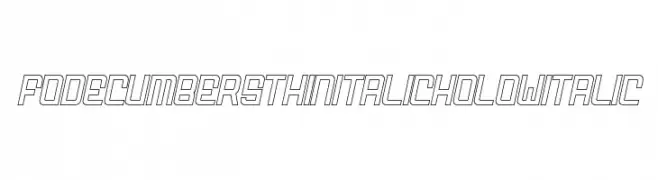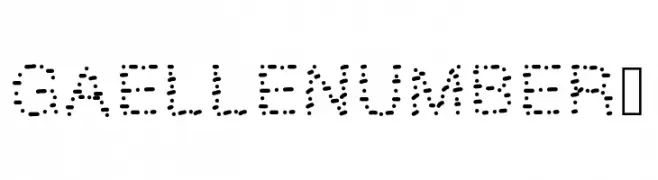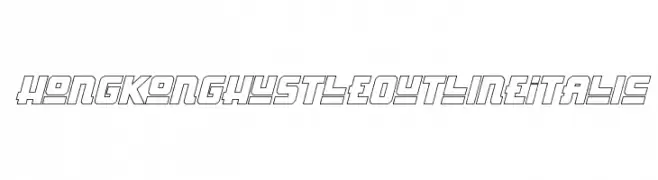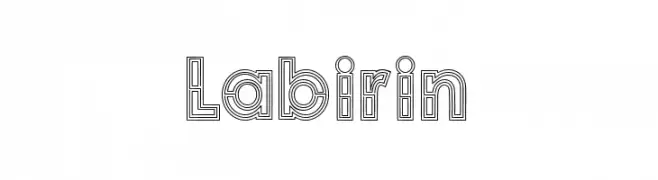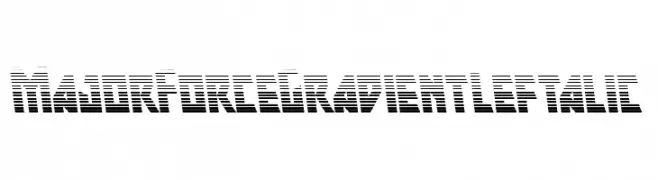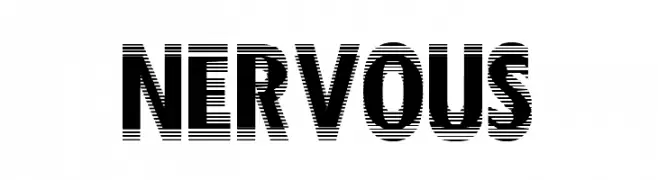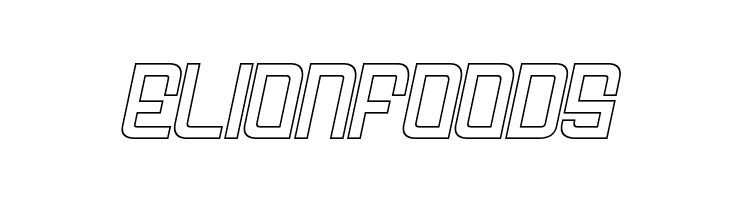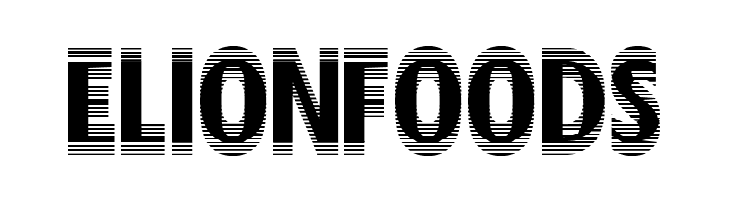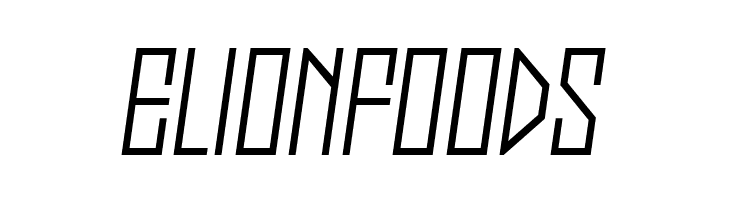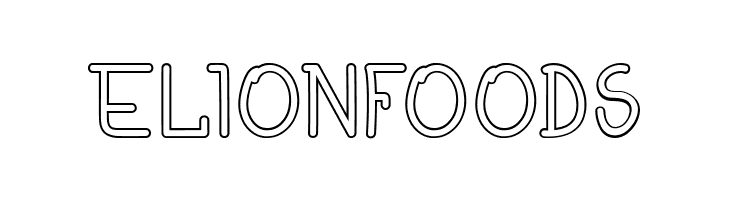
A modern, italicized, hollow font with geometric and angular design.
A modern, stencil-like font with geometric and industrial characteristics.
A bold, modern font with a glitch effect and high contrast.
A bold, angular font with a futuristic and geometric design.
A modern, geometric outline font with consistent line thickness and angular letterforms.
A decorative font with characters formed by small, evenly spaced dots.
A bold, geometric outline font with a maze-like design.
A geometric, angular font with a futuristic and edgy design.
A bold, futuristic font with a gradient effect and geometric shapes.
A bold, futuristic outline font with an italic slant and geometric shapes.